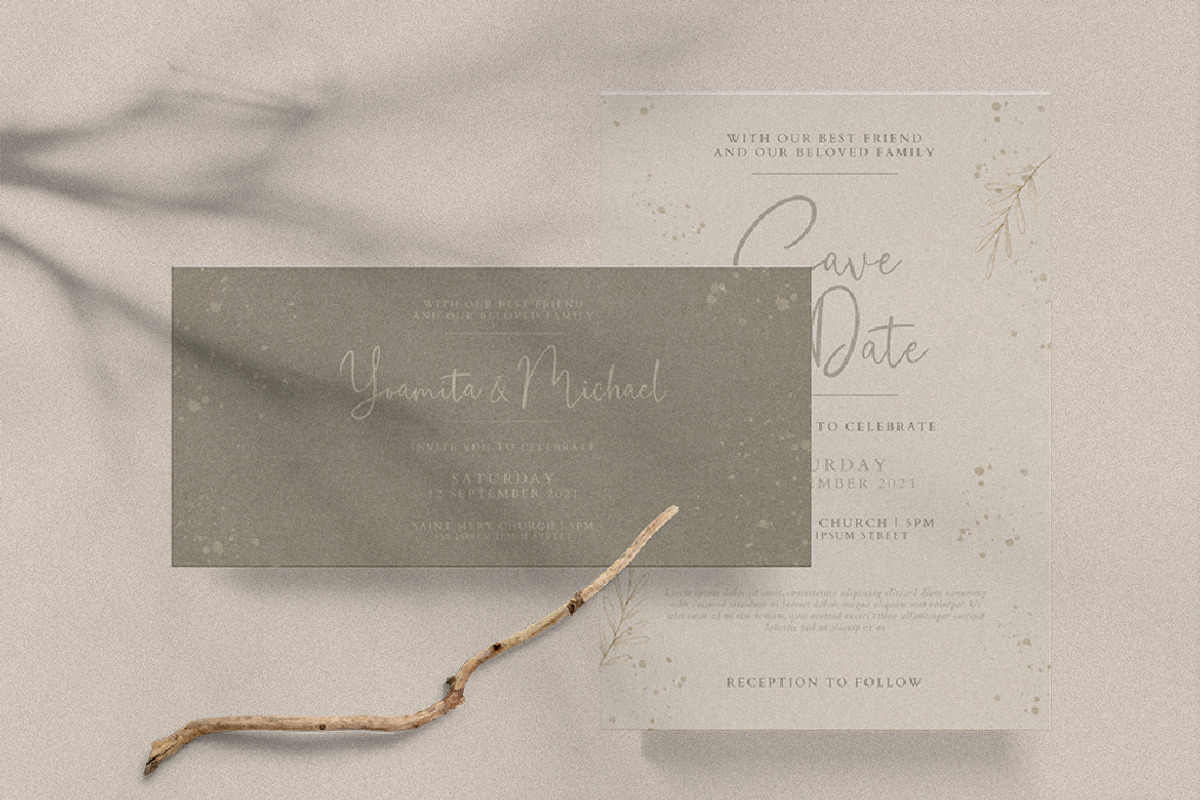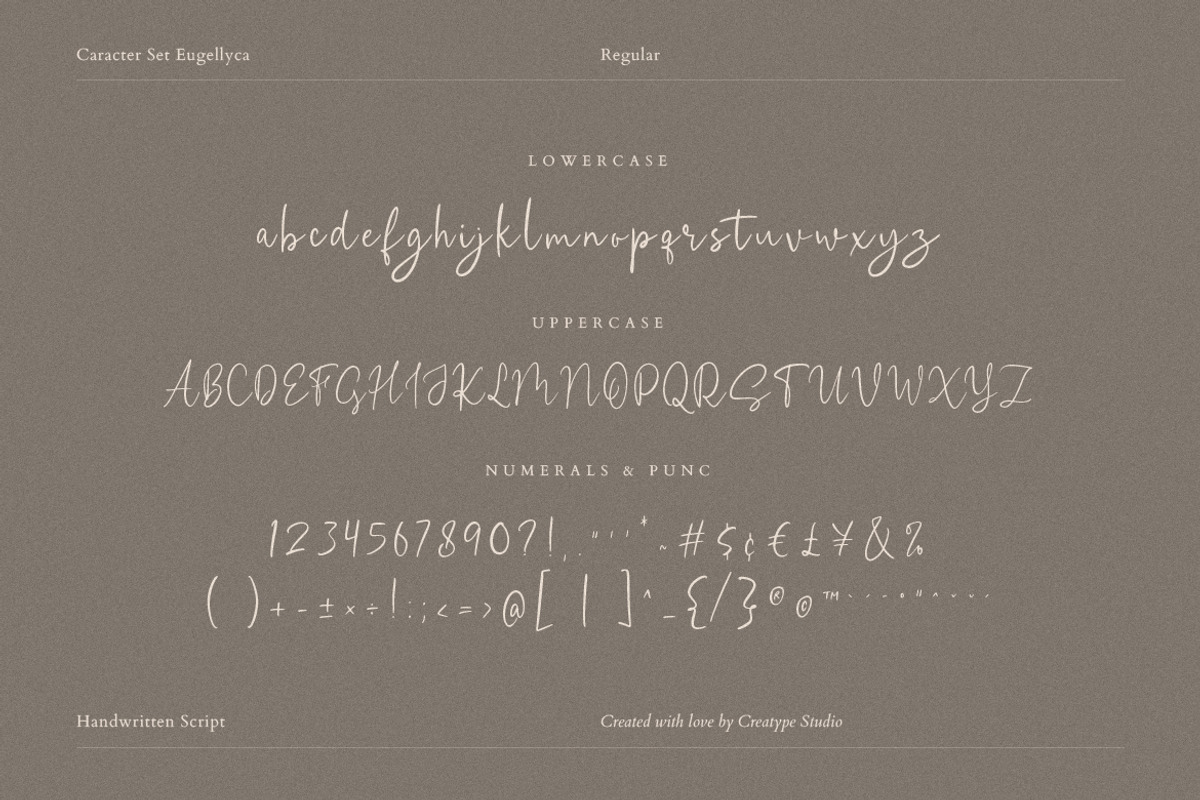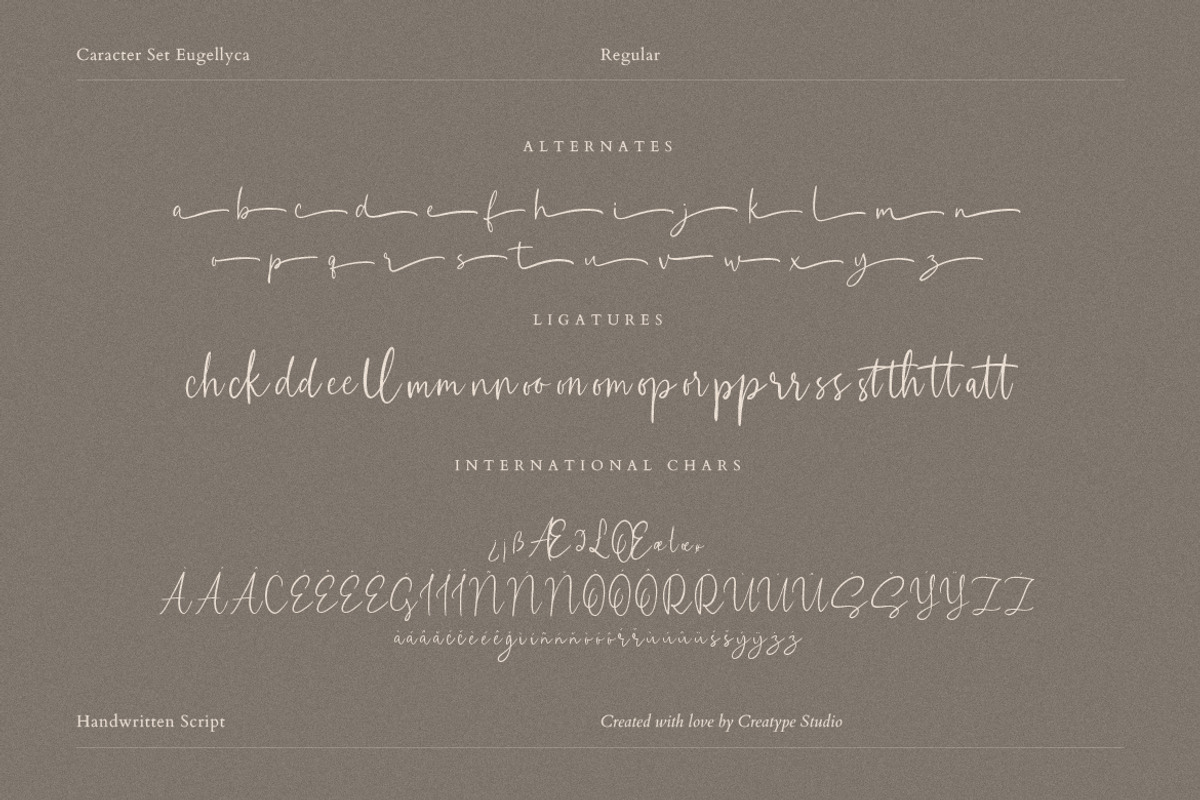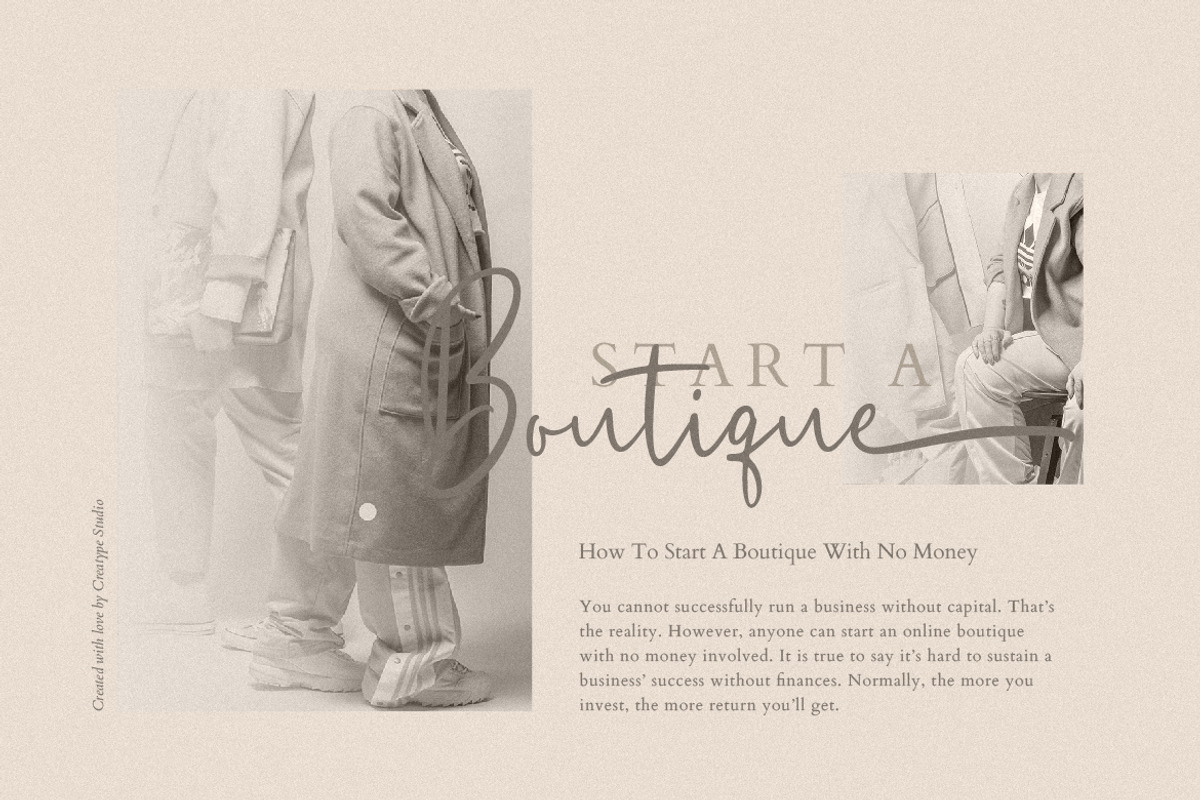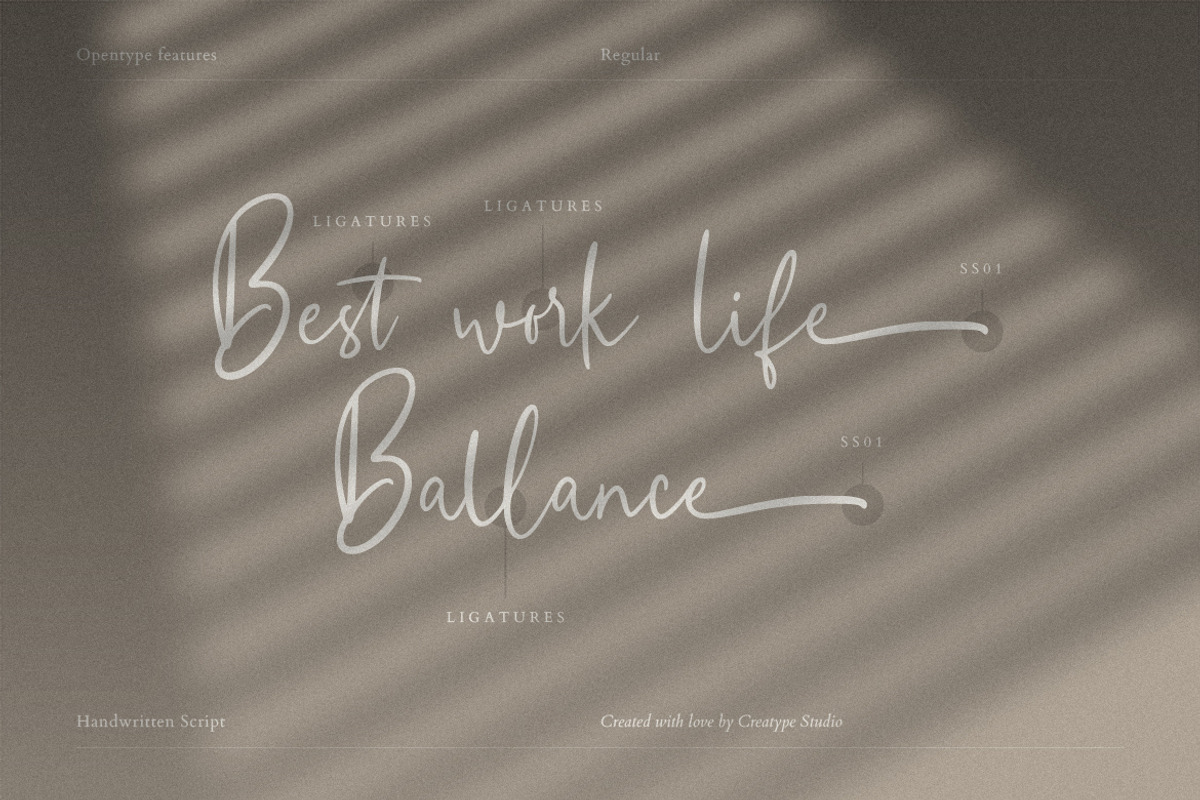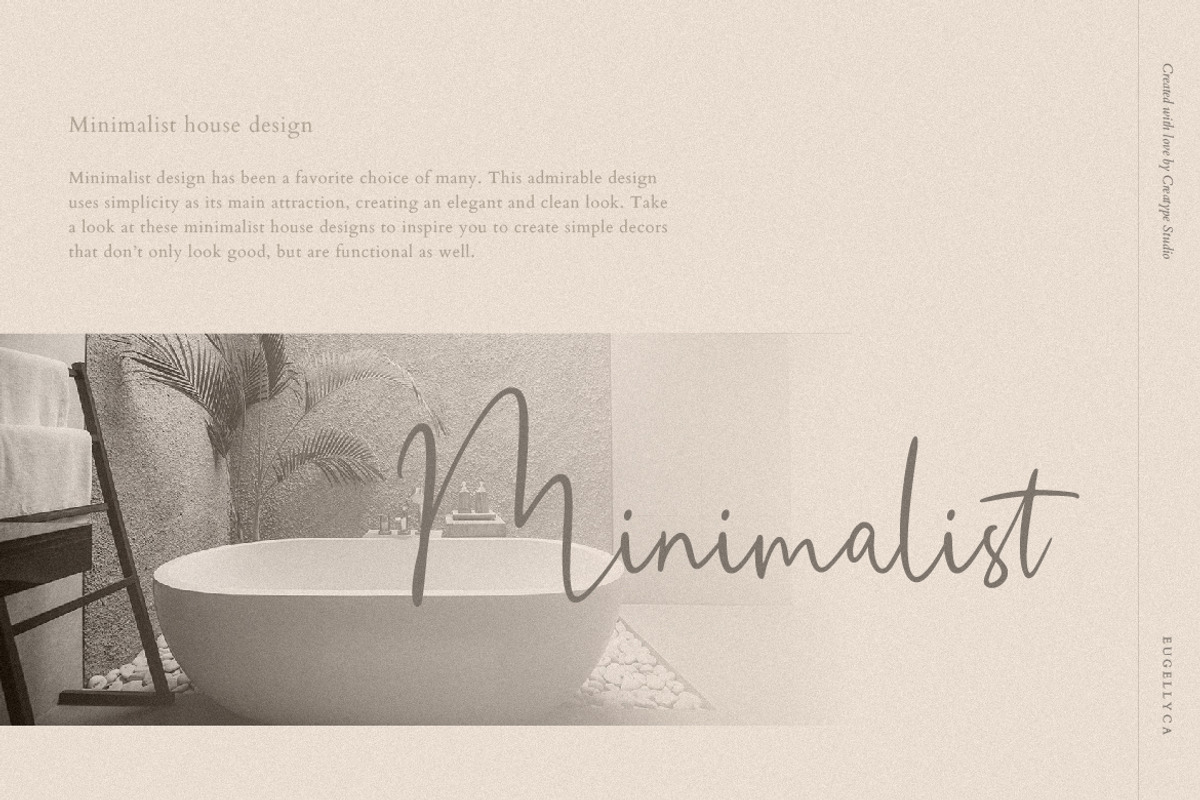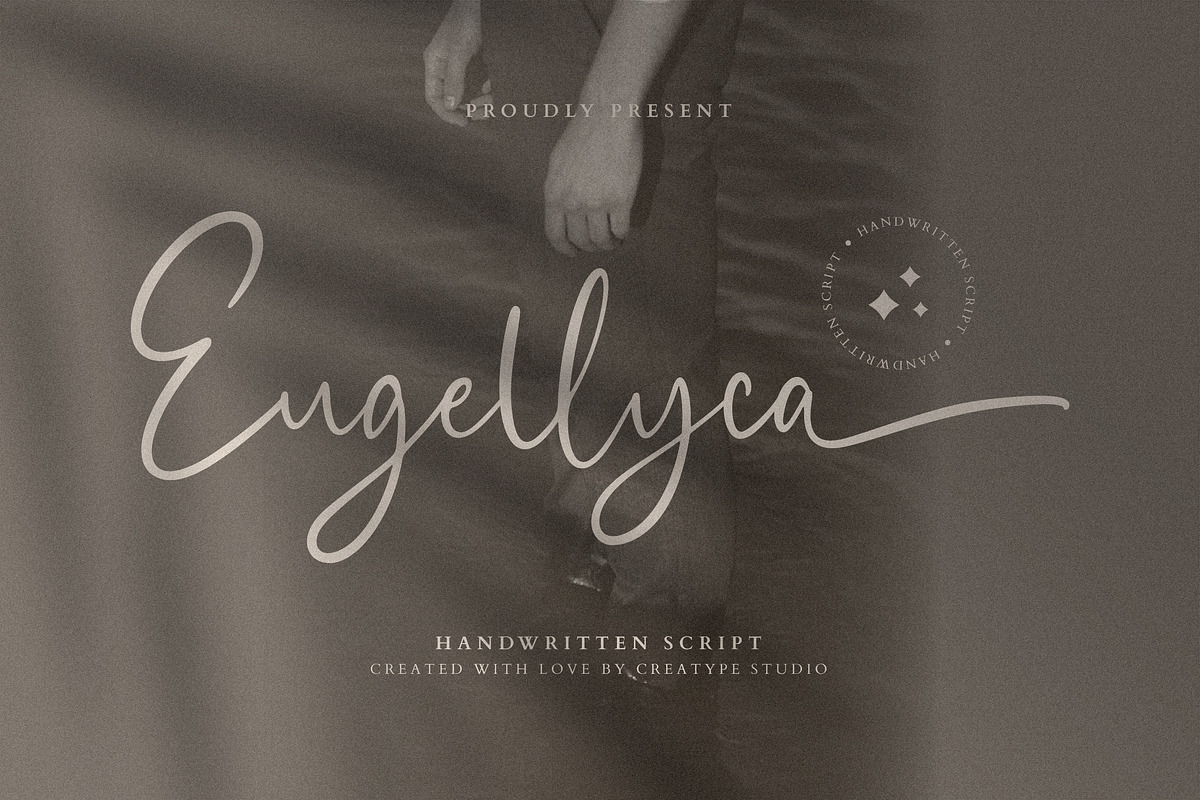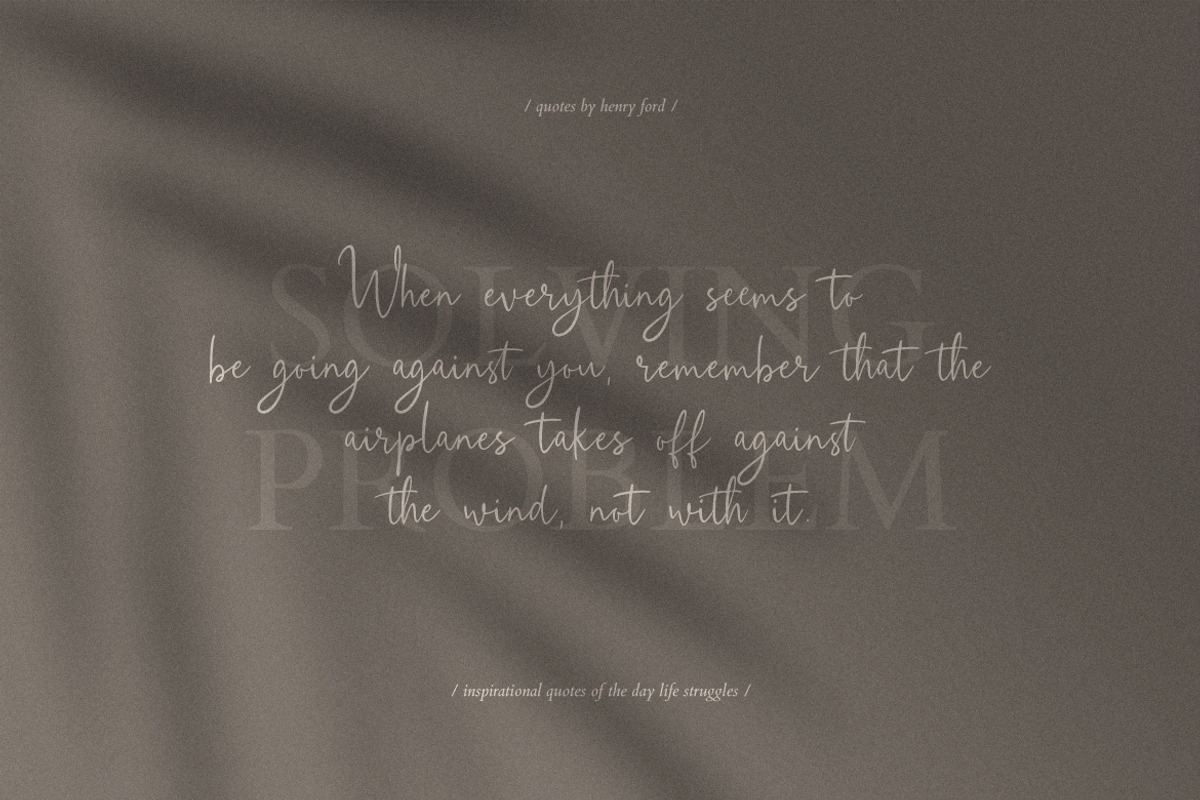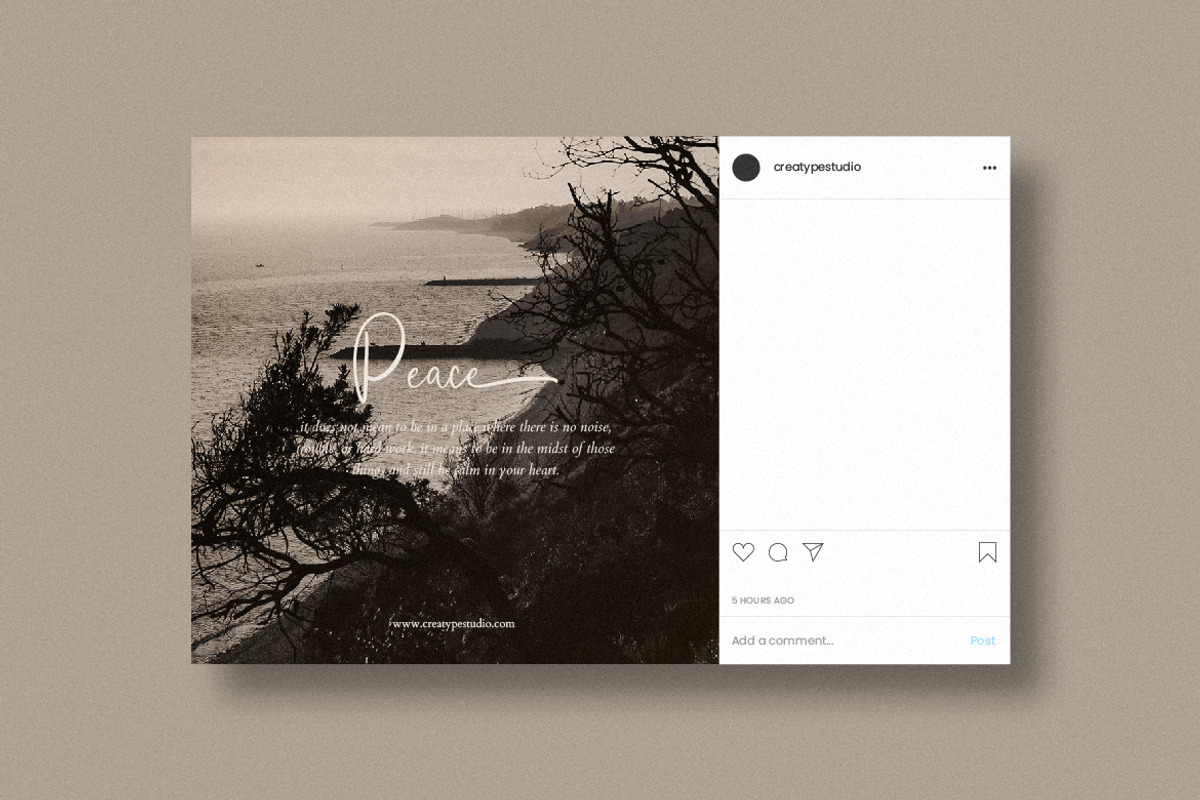
Eugellyca Handwritten Script
Eugellyca is a Handwritten Script typeface that looks so awesome. This font looks so feminine and bold, that it is perfect when paired with an uppercase serif or sans serif font, like the preview above.
Eugellyca is perfect for branding projects, logo, wedding designs, social media posts, advertisements, product packaging, product designs, label, photography, watermark, invitation, stationery and any projects that need handwriting taste.
- Ligature & Alternate